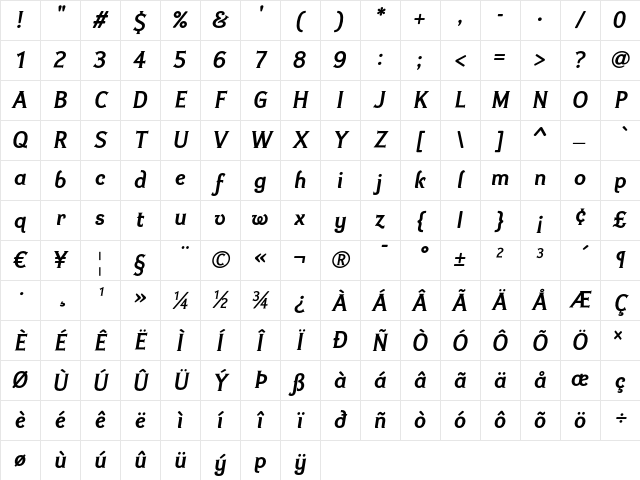
Ideal Gothic Bold Italic
Foundry: Frantisek Storm, www.stormtype.com
Design Context for Ideal Gothic
Ideal Gothic takes a clean, functional approach - its unadorned letterforms prioritise legibility and work reliably across screen and print environments. The slanted form adds forward momentum and visual energy. Its bold stroke weight gives it real presence on the page.
Font Pairing: Use Ideal Gothic for headlines alongside a lighter-weight sans or serif for body copy to establish clear visual hierarchy.
Pro Tip: Use Ideal Gothic for UI labels, navigation, and short-form body copy where clean legibility is the priority.
Who designed the Ideal Gothic Bold Italic font?